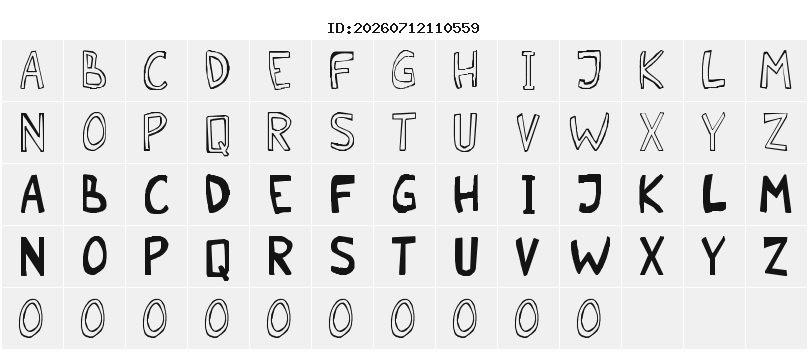
• Font Name: Malkmus_erc_001
• Full Font Name: Malkmus_erc_001
• Designer: High-Logic - Erwin Denissen 1999
About Malkmus_erc_001.ttf
Malkmus_erc_001.ttf is a modern, elegant sans-serif font designed for ultimate readability and visual harmony. Perfect for branding, headlines, web design, and print materials.